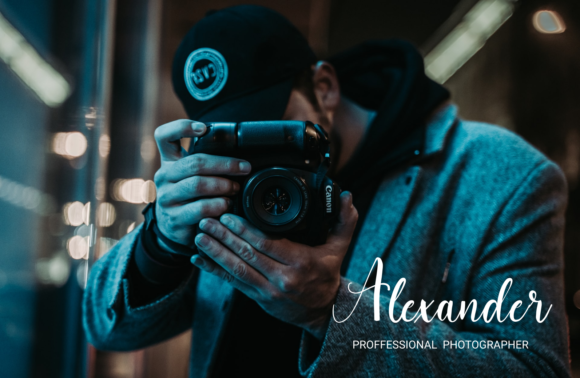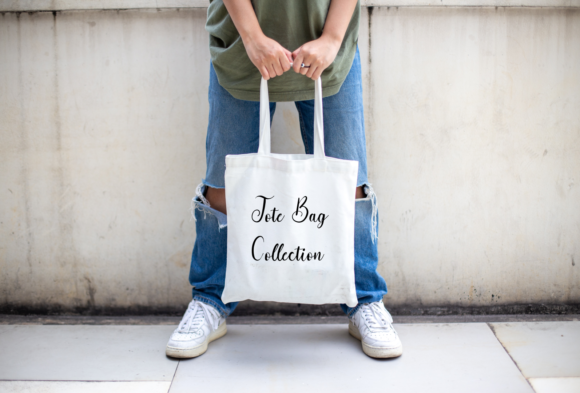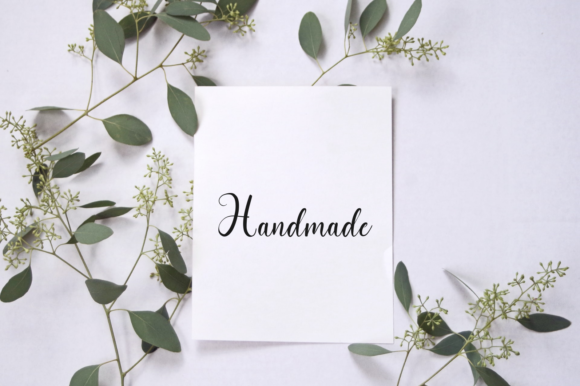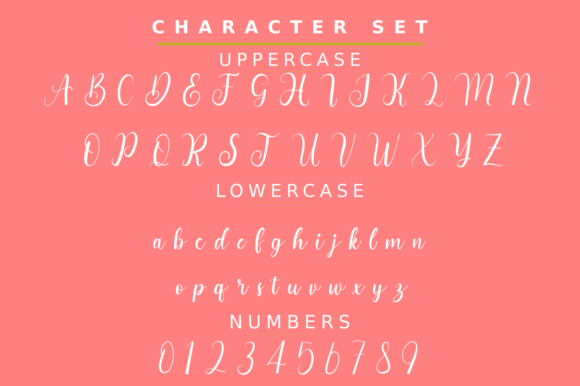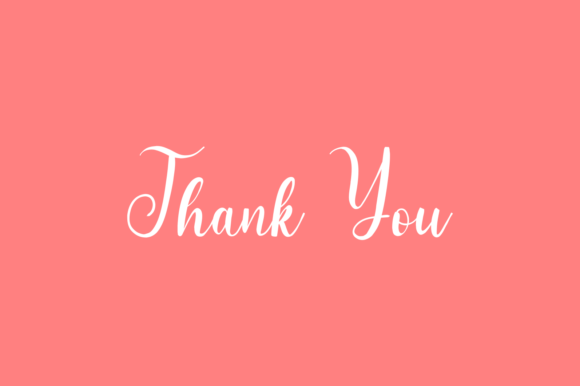
Bianca Font: The Delicate Touch of Elegance
Have you ever found yourself scribbling down notes in a coffee shop, and suddenly a beautiful idea strikes? You grab your pen and start to sketch out the details, and before you know it, your notebook page is filled with elegant handwriting. This is exactly the kind of creative moment that inspired the Bianca Font, a delicate and flowing handwritten font that adds a touch of sophistication to any design.
With its beautiful and well-balanced characters, the Bianca Font is the perfect addition to any design project. Whether you’re working on a wedding invitation, a business card, or a logo, this font is sure to impress. Its versatility and elegance make it a valuable asset for designers who want to create a lasting impression.
Bianca Font Key Features
- Font Family: Bianca
- Font Style: Script, Calligraphy
- Unique Characteristics: Elegant, cursive script with a touch of elegance and sophistication, ideal for wedding invitations, formal events, and high-end branding
Bianca Font Review
I’ve had the chance to work with the Bianca font, and I must say it’s a mixed bag. Here are my thoughts.
- The elegant script style makes it perfect for invitations, wedding cards, and other formal events.
- The font is highly legible, making it suitable for body text in articles, blogs, or magazines.
- The font supports a wide range of languages, including Latin, Greek, and Cyrillic.
- The font is not ideal for headlines or titles due to its relatively small x-height and narrow letterforms.
- The font lacks a bold or condensed version, which can limit its use in certain design contexts.
- The font may not be the best choice for digital screens due to its high stroke contrast and potential readability issues.
Overall, the Bianca font is a beautiful script font that excels in formal and editorial contexts. However, its limitations make it less versatile than other fonts. If you’re looking for a elegant script font for a specific project, Bianca might be a great choice. But for more general use, you may want to consider other options.
Tip: Use Bianca Font for headings and titles to add a touch of elegance to your designs.
Tip: Use Bianca Font for typography-based designs, such as posters and business cards.
Tip: Use Bianca Font for headings and titles to add a touch of sophistication to your presentations and documents.
Bianca Font is ideal for:
- Posters and flyers
- Typography-based designs
Remember to use Bianca Font in conjunction with other design elements to create a cohesive and visually
Alternatives to Bianca Font
Great Vibes is a beautiful, elegant script font perfect for adding a touch of sophistication to your designs. It’s ideal for use in wedding invitations, fashion magazines, and luxury branding. Great Vibes has a more refined and classic look compared to Bianca Font, which is more playful and modern.
Carolyna Pro is a modern script font that’s great for creating a luxurious and high-end feel in your designs. It’s suitable for use in fashion, beauty, and lifestyle branding. Carolyna Pro has a more fluid and dynamic look compared to Bianca Font, which is more rigid and geometric.
Alex Brush is a elegant and sophisticated script font perfect for use in creative and artistic designs. It’s ideal for use in wedding invitations, art books, and creative portfolios. Alex Brush has a more classic and timeless look compared to Bianca Font, which is more modern and trendy.
Ostrich Sans is a modern sans-serif font that’s great for creating a clean and minimalistic look in your designs. It’s suitable for use in tech, finance, and corporate branding. Ostrich Sans has a more geometric and modern look compared to Bianca Font, which is more playful and script-based.
Bianca Font Creative Project Ideas
Create a romantic and elegant wedding invitation using the Bianca Font.
- Use the Bianca Font for the main title, “Love Story” or “Happily Ever After”.
- Combine with watercolor illustrations of flowers, birds, or other whimsical elements.
What is the recommended font size for the Bianca Font?
The recommended font size for the Bianca Font is between 10pt and 24pt, depending on the context and design requirements. For body text, 12pt is a good starting point, while headings can be set at 18pt or larger for optimal legibility.